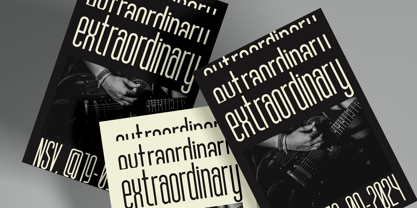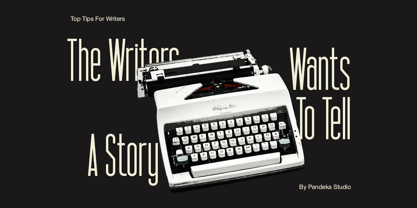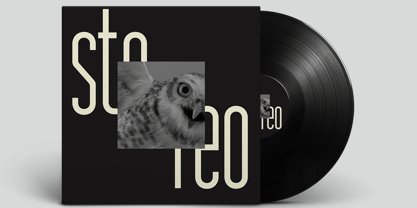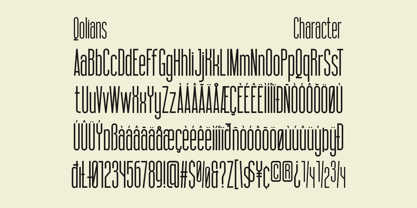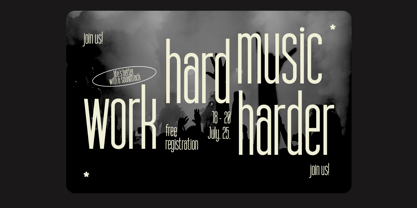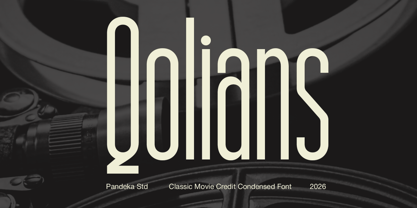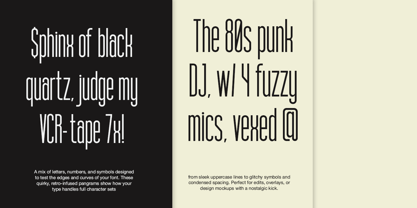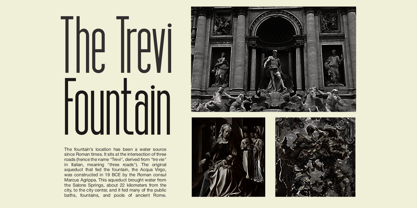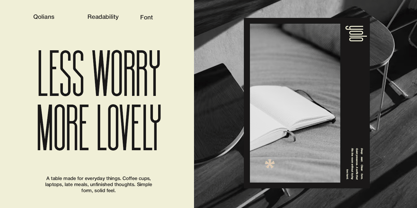
Qolians
La familia tipográfica Qolians fue diseñada por Sagara Nararya y publicada por Pandeka Studio. Qolians contiene 2 estilos y opciones de paquete familiar. Más información sobre esta familia
Qolians is a modern condensed display font crafted for cinematic titles, editorial layouts, and bold visual storytelling. Featuring tall, narrow letterforms with clean lines and elegant proportions, it delivers a sophisticated, dramatic, and highly readable appearance that stands out across both digital and print media.
Available in 2 styles: Regular and Slant, Qolians offers excellent versatility for creating movie titles, film posters, streaming thumbnails, magazine headlines, book covers, album artwork, branding, advertising campaigns, fashion editorials, website headers, presentations, social media graphics, packaging, and creative display projects. Its refined condensed design creates a timeless and impactful visual identity, making every headline look bold, stylish, and unforgettable.
• 2 Styles: Regular and Slant
• Full Character Set: Uppercase, lowercase, numbers, symbols, and punctuation